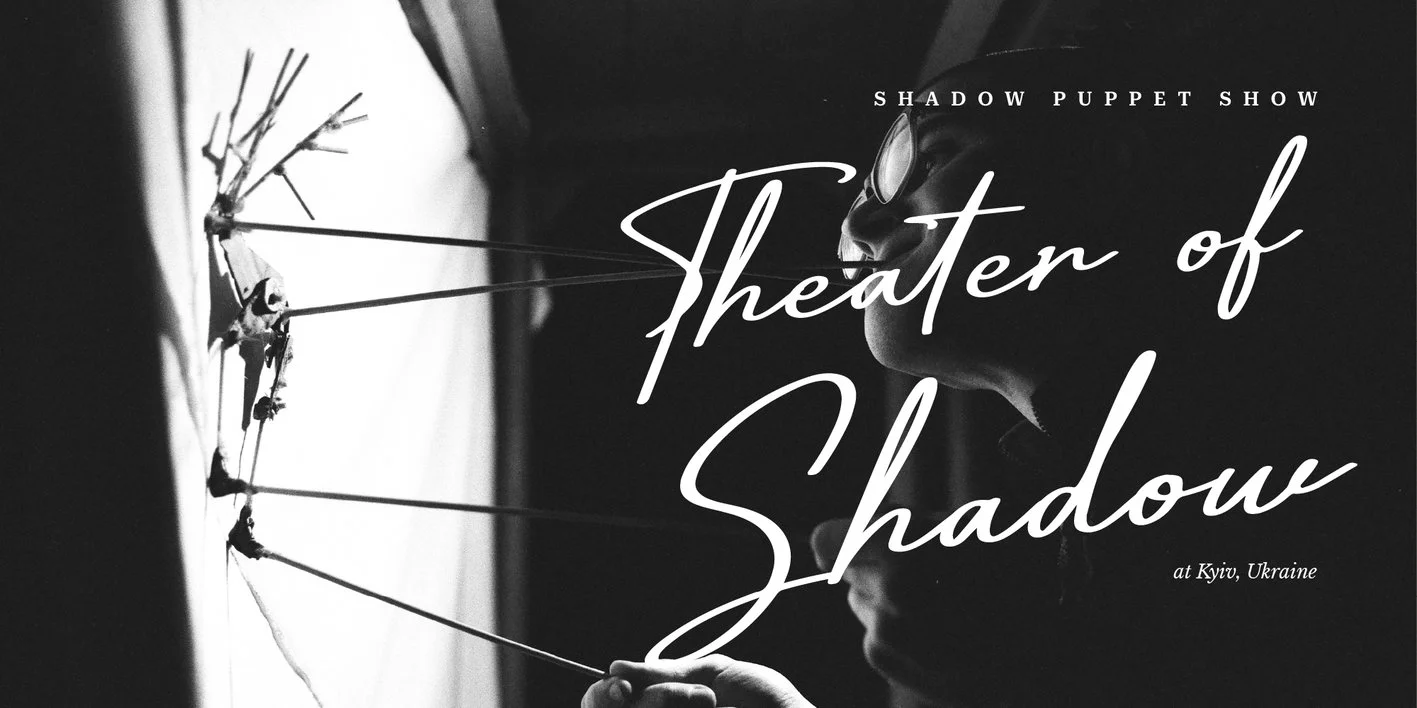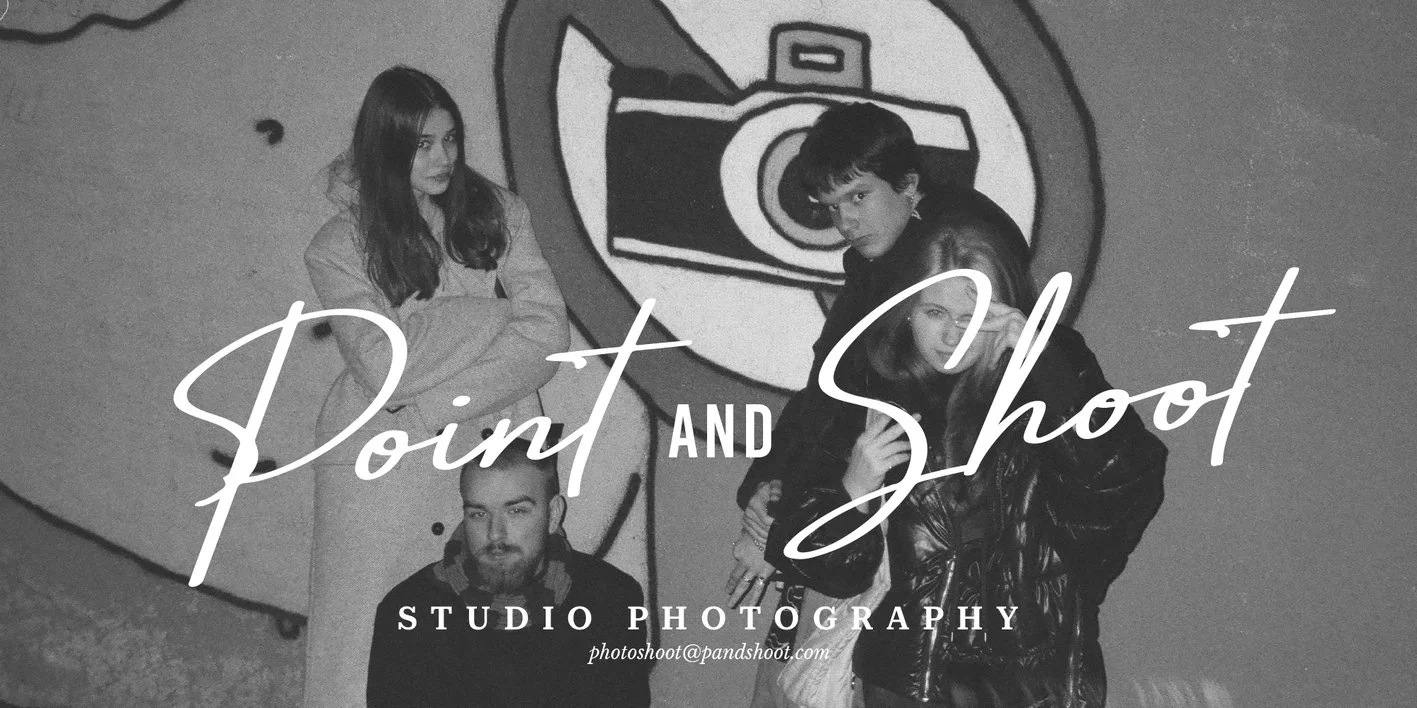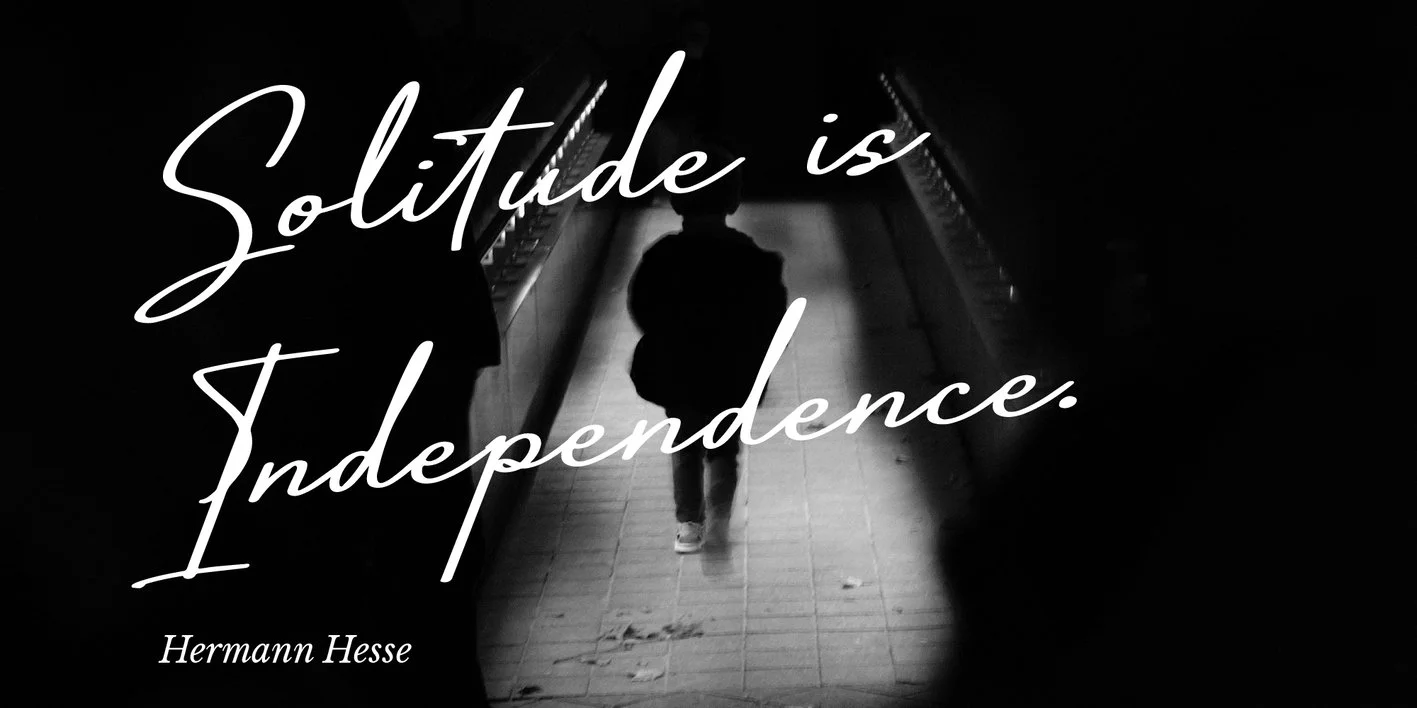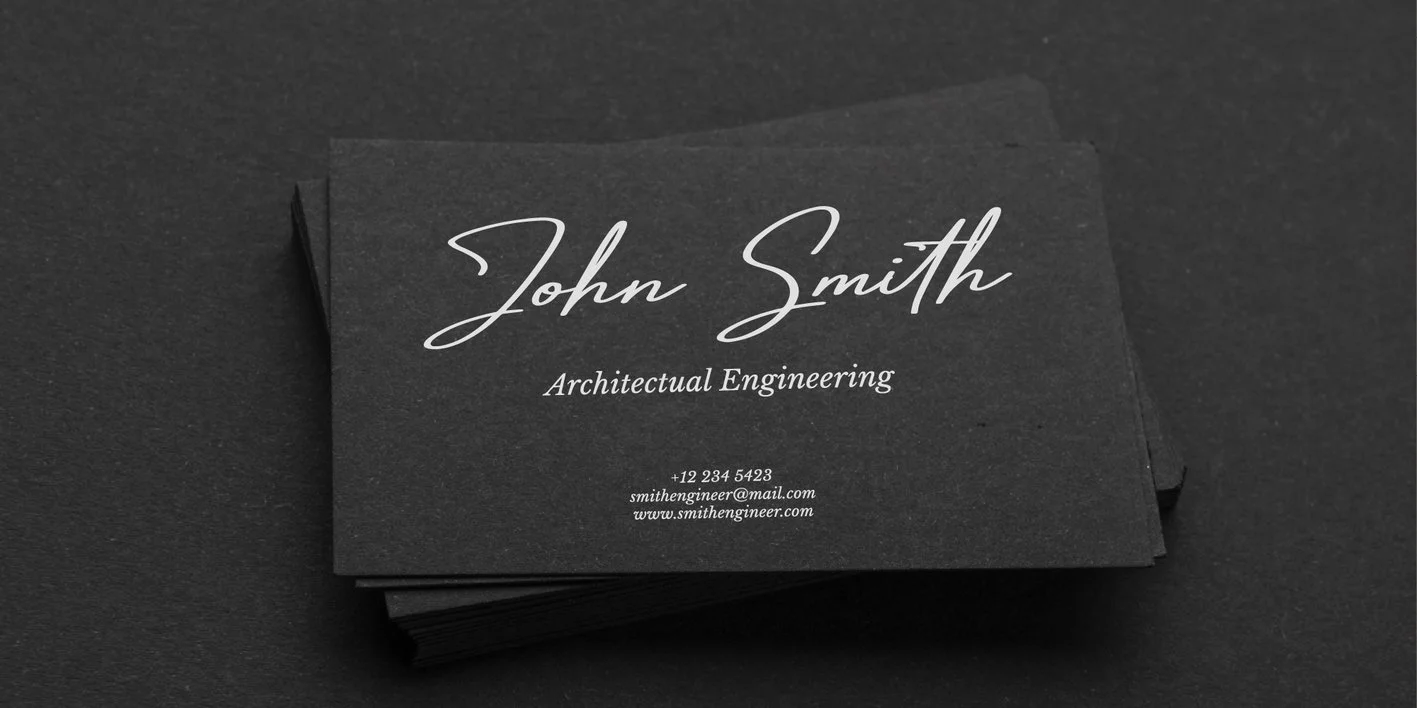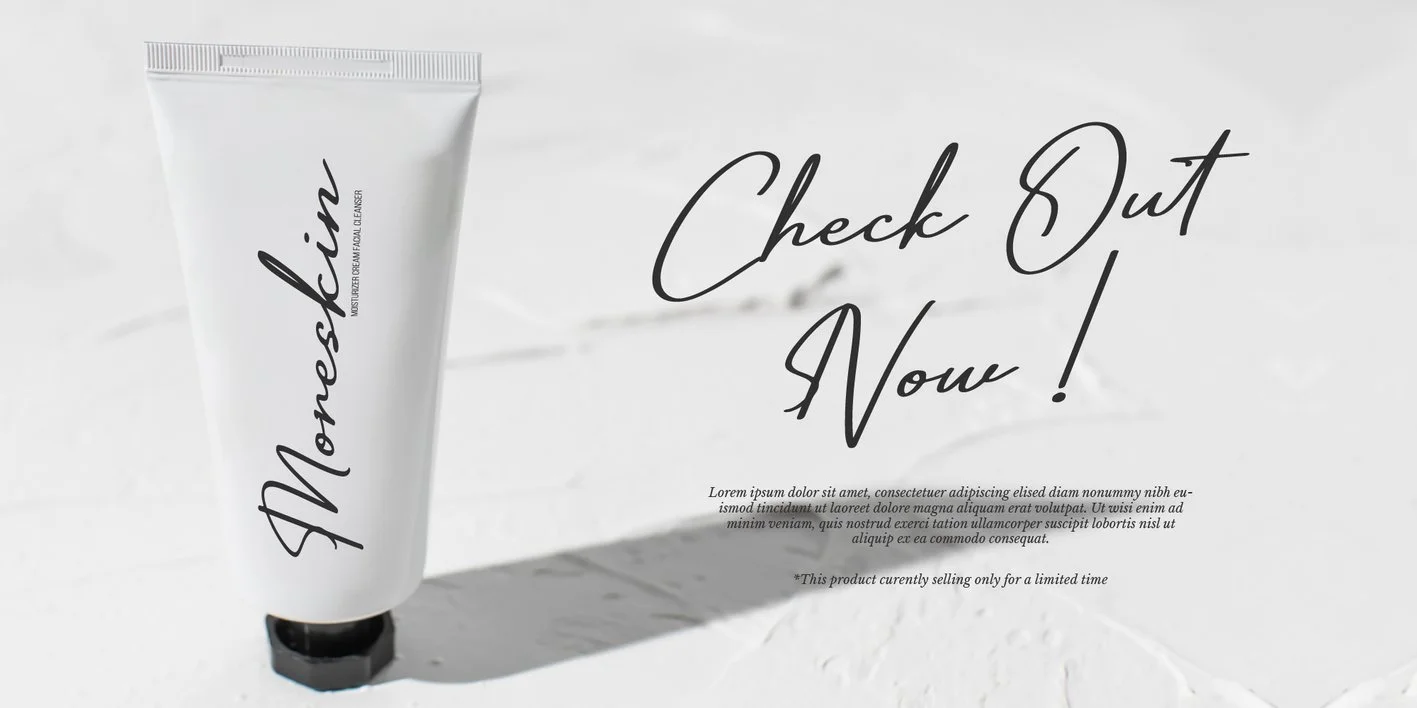
Uttahime Font
Uttahime | Modern Signature Font, from Gracetypestudio, suitable for any projects such as: logos, branding projects, homeware designs, product packaging, mugs, quotes, posters, shopping bags, t-shirts, book covers, name card, invitation cards, greeting cards, label, photography, watermark, special events, and all your other lovely projects that need a Modern Signature script taste.